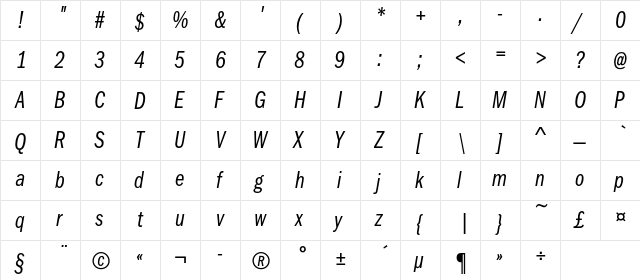
FranklinGothicBookCmpC Italic Font Preview
FranklinGothicBookCmpC Italic
FranklinGothicBookCmpC Italic Font Details
Design Context for FranklinGothicBookCmpC Typeface
FranklinGothicBookCmpC has the quiet confidence of well-executed sans-serif typography: versatile, unobtrusive, and dependable at any size. The slanted form adds forward momentum and visual energy.
Font Pairing: Works well alongside a characterful serif or display font that can carry the expressive load while FranklinGothicBookCmpC handles the functional copy.
Pro Tip: Use FranklinGothicBookCmpC for UI labels, navigation, and short-form body copy where clean legibility is the priority.